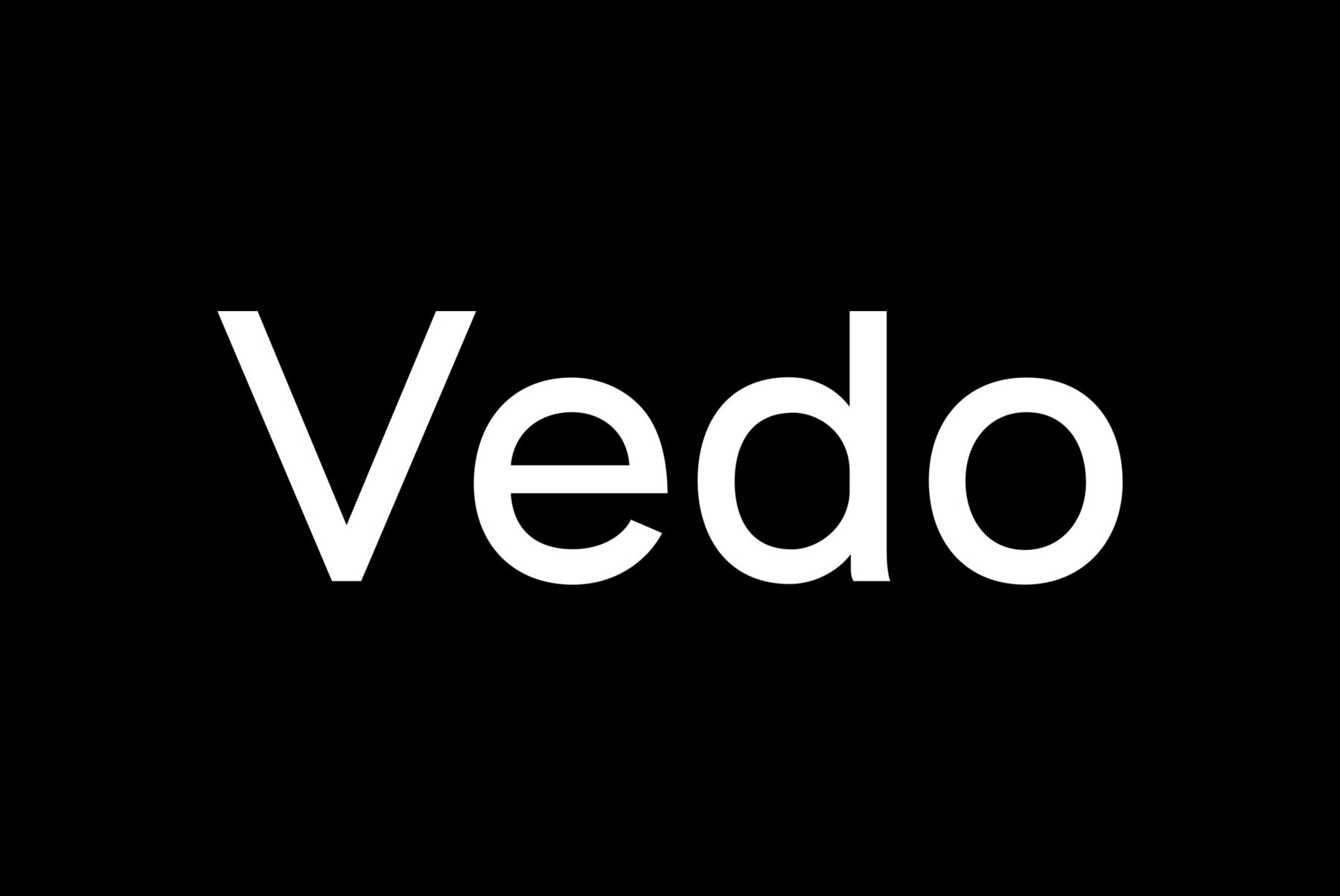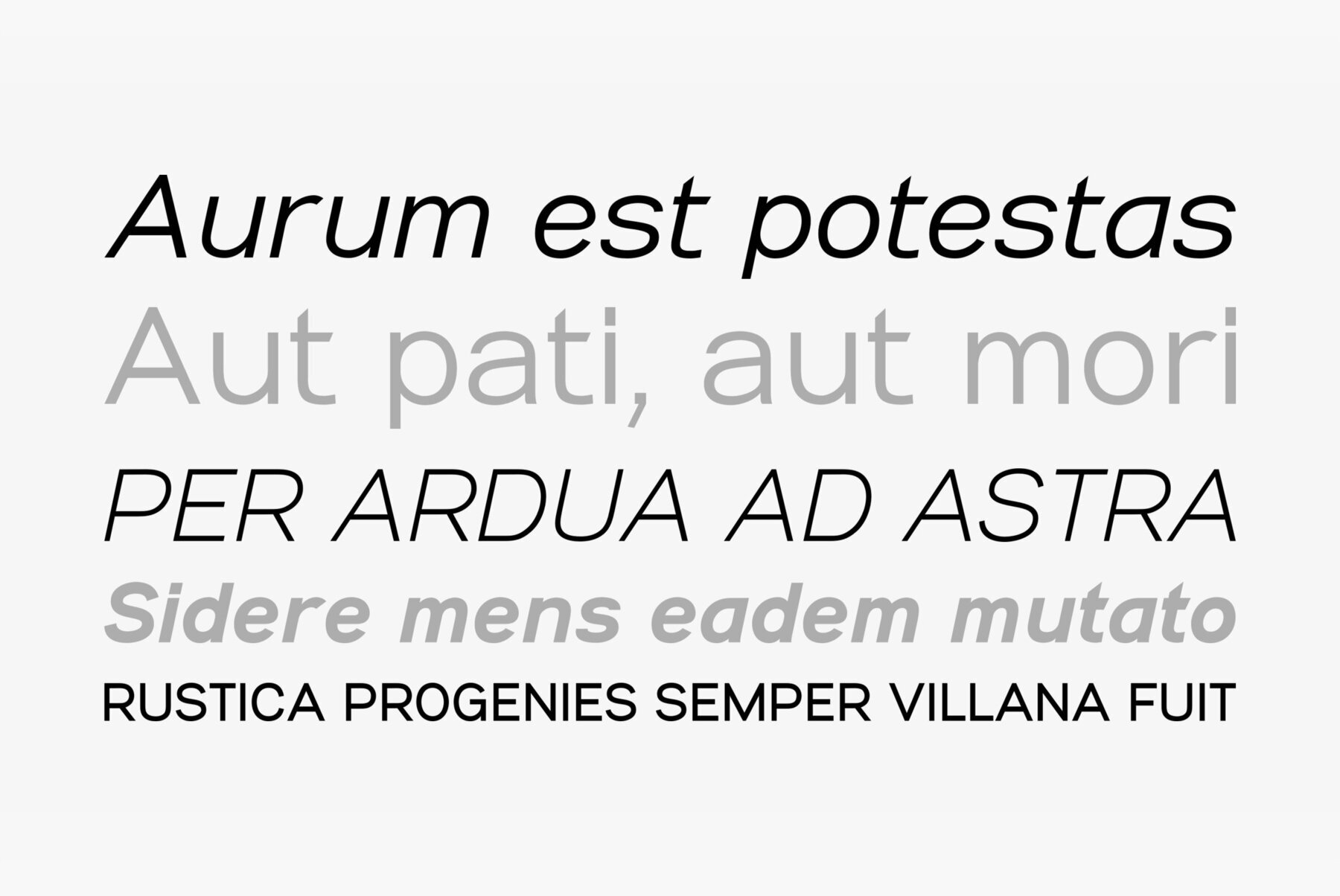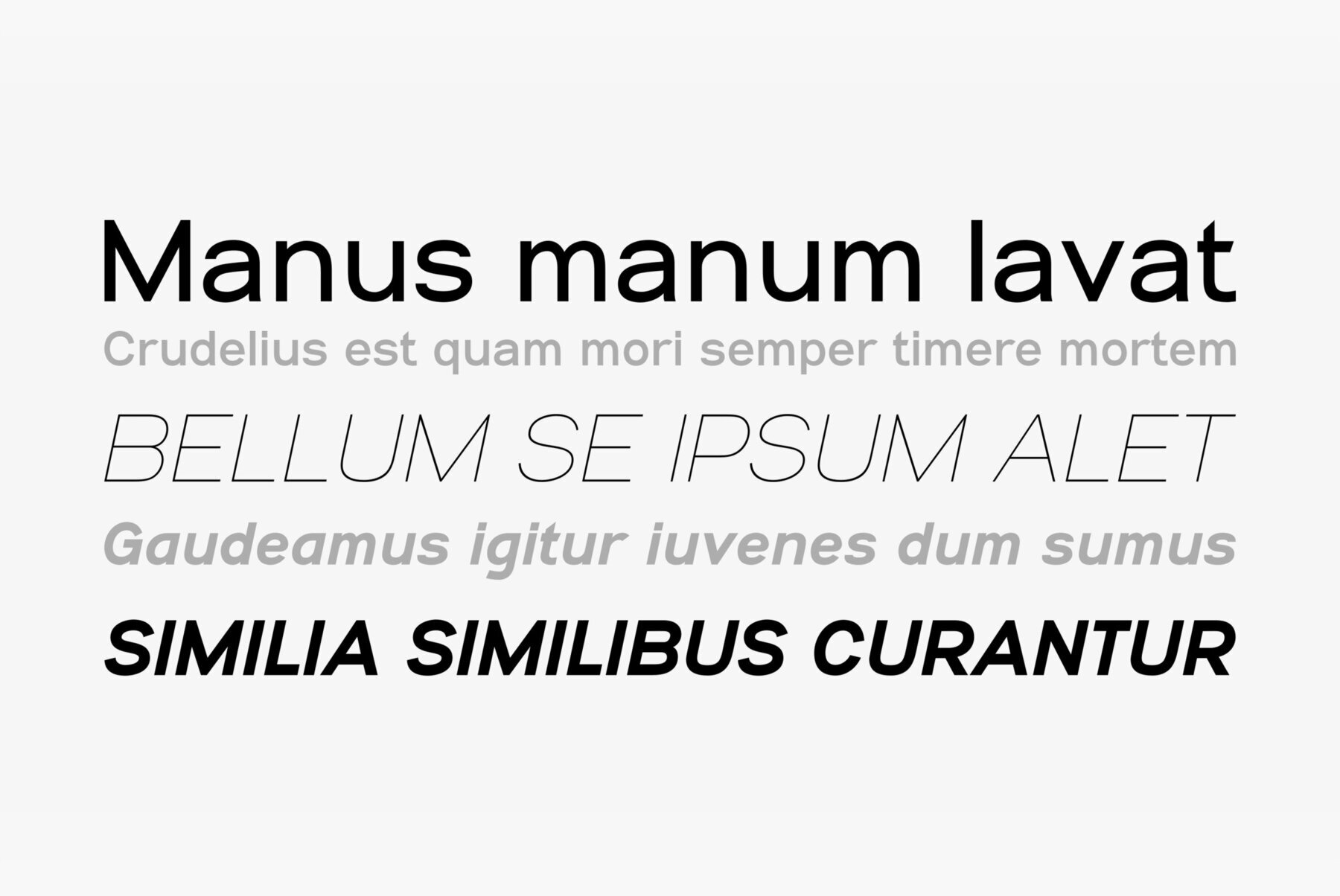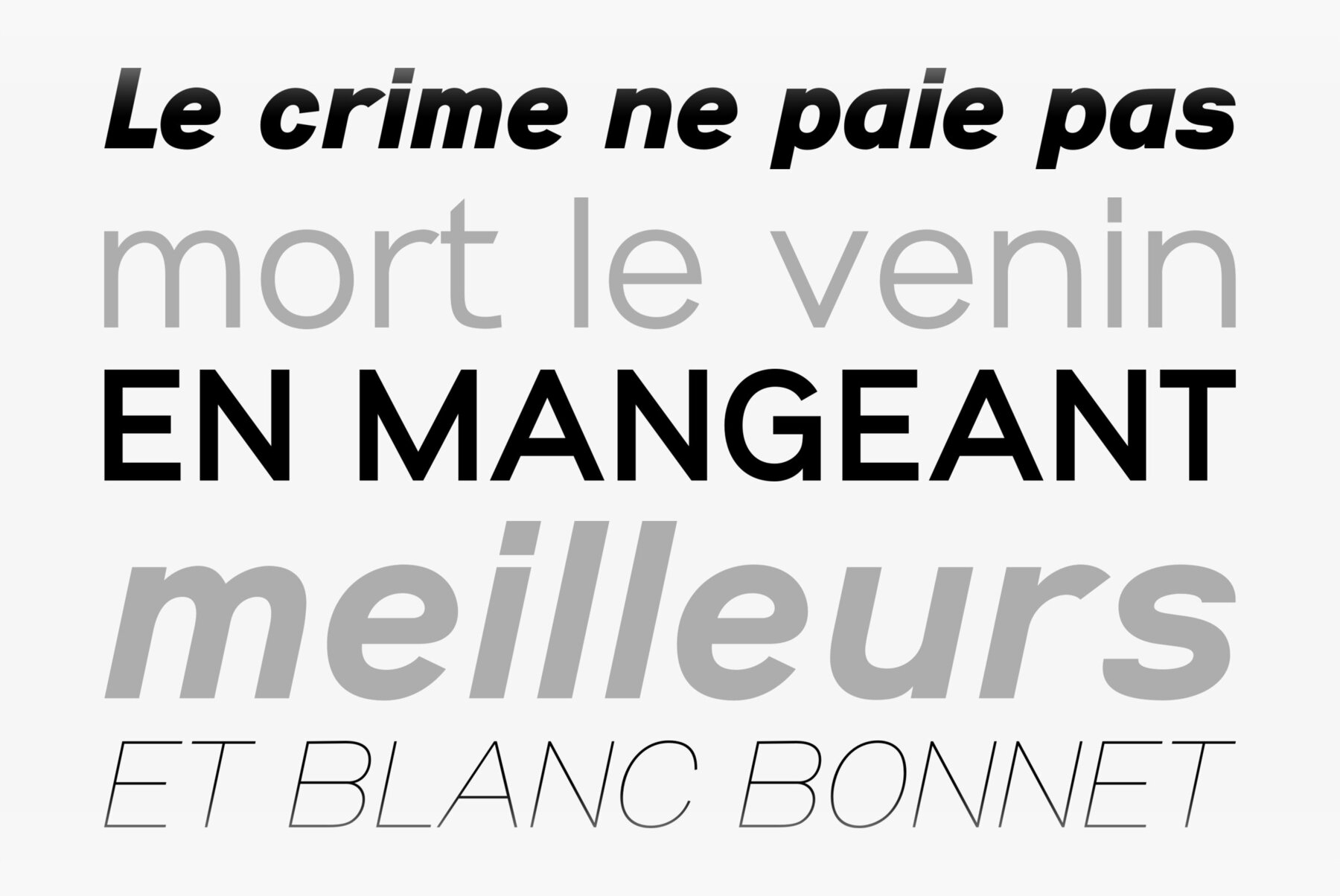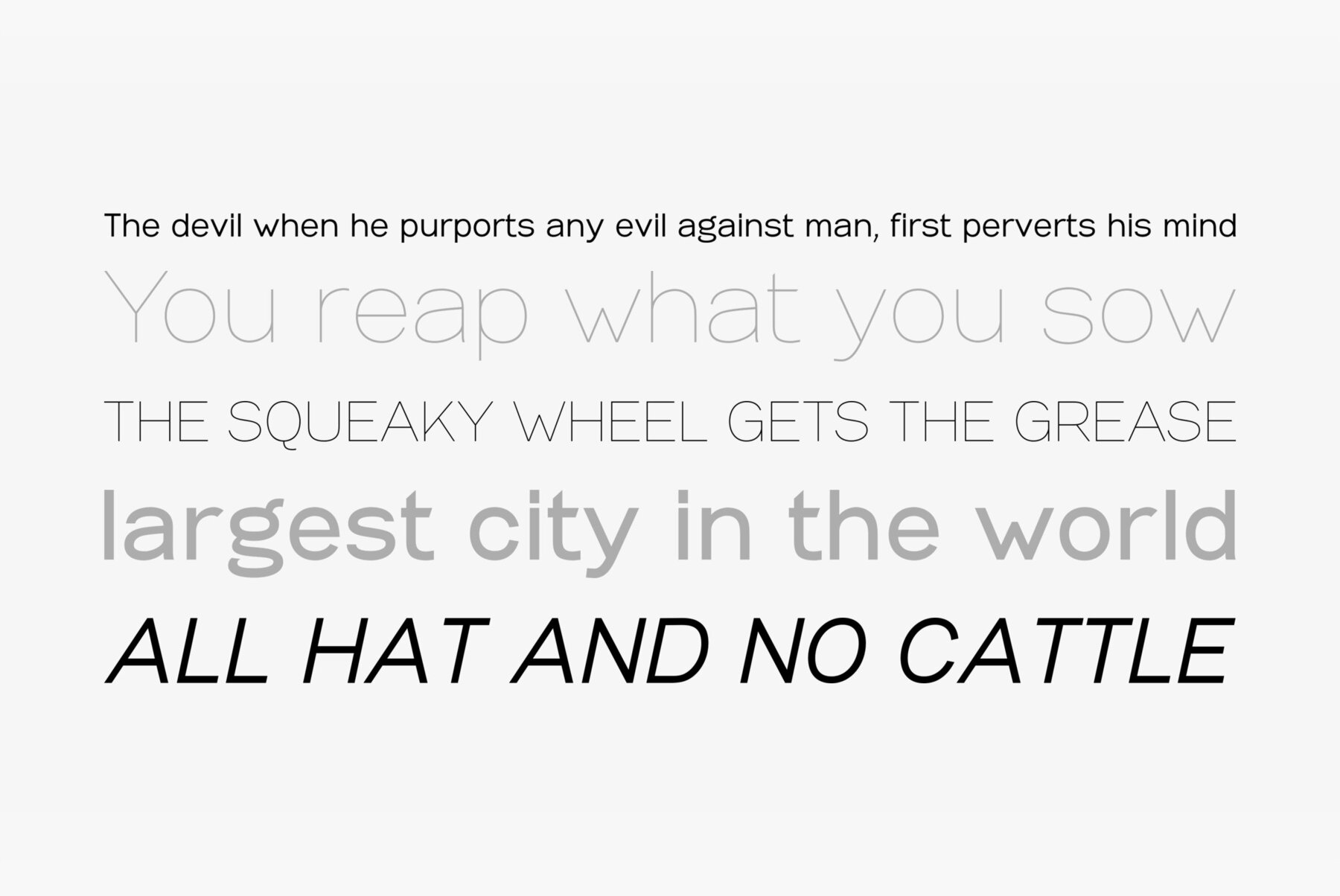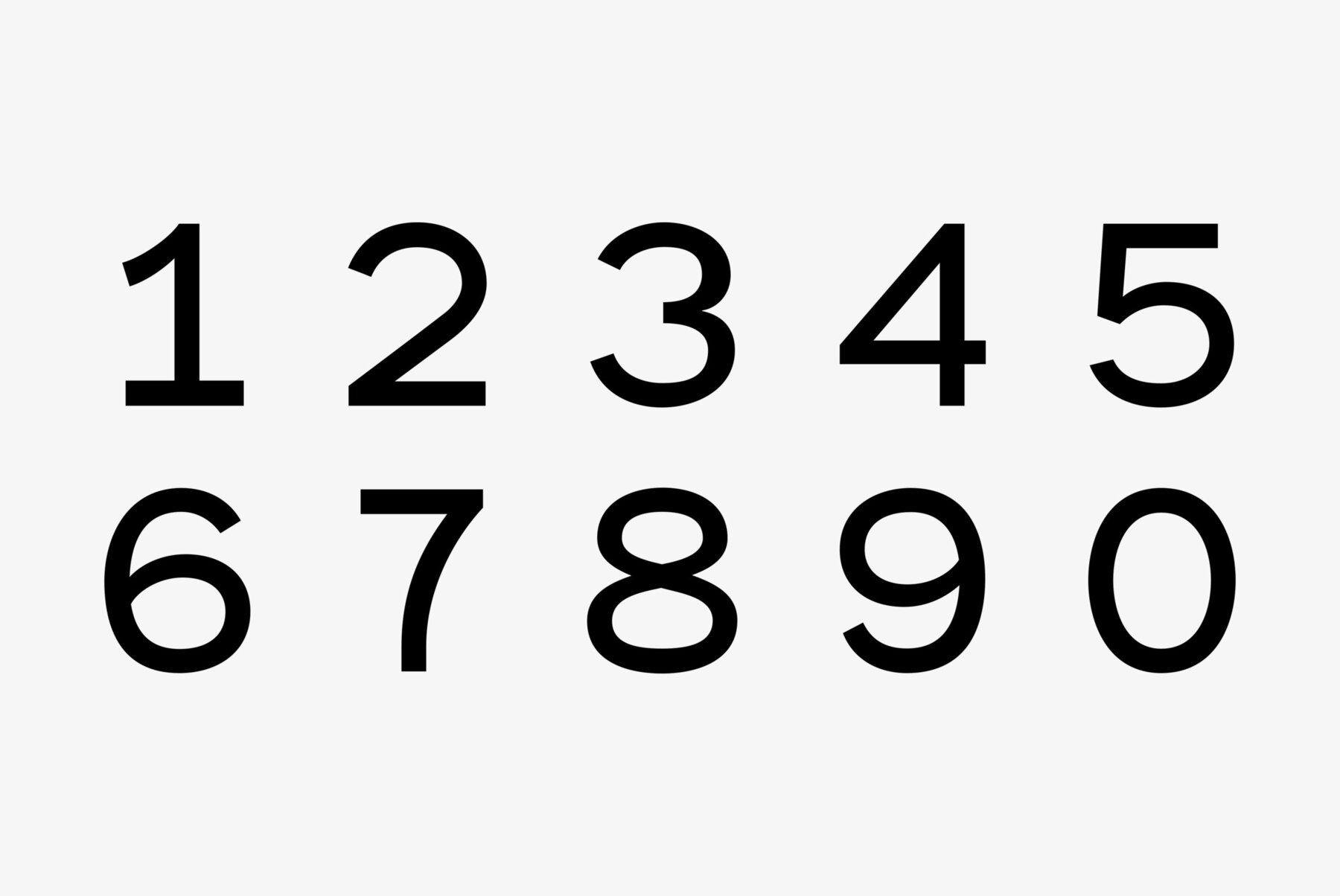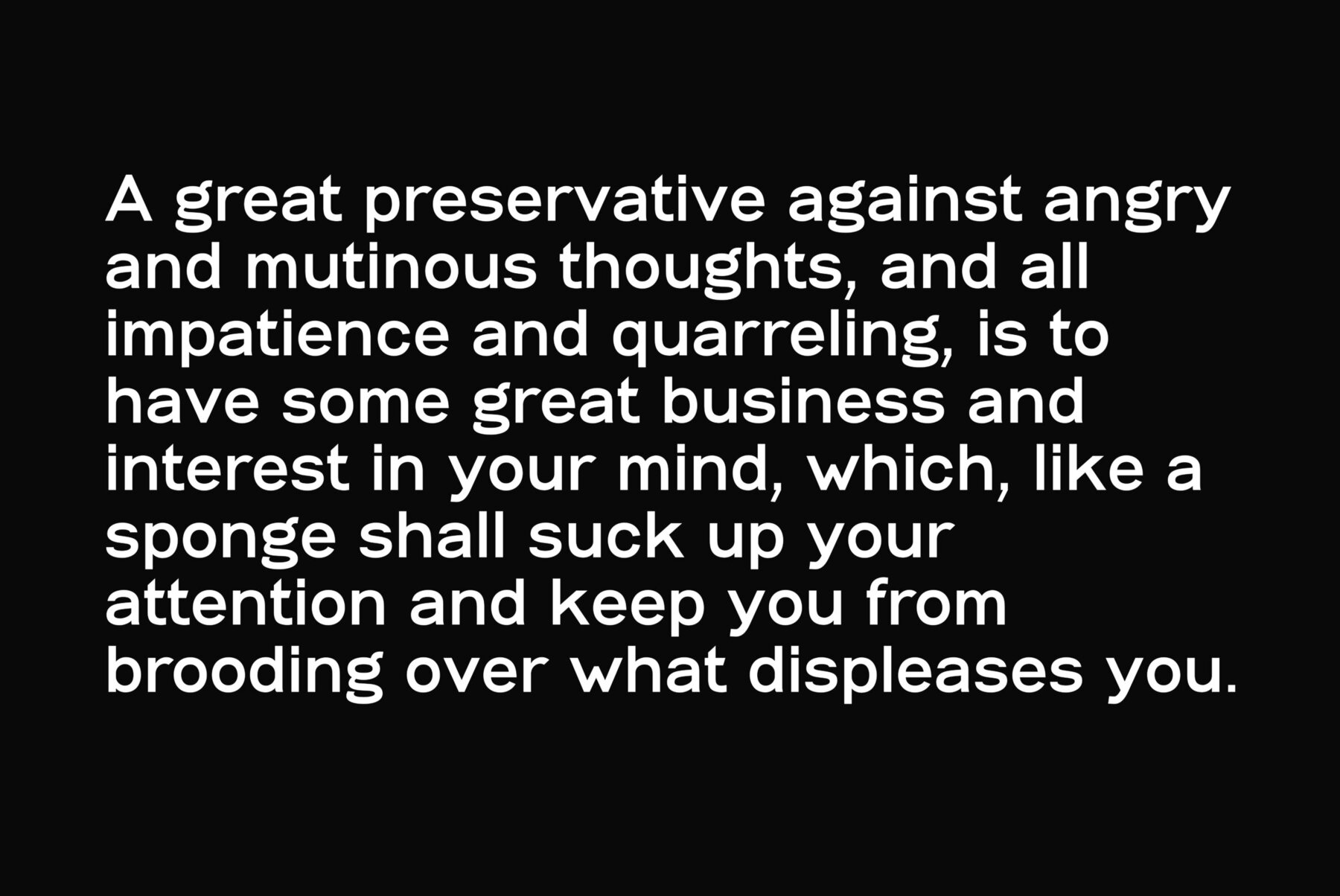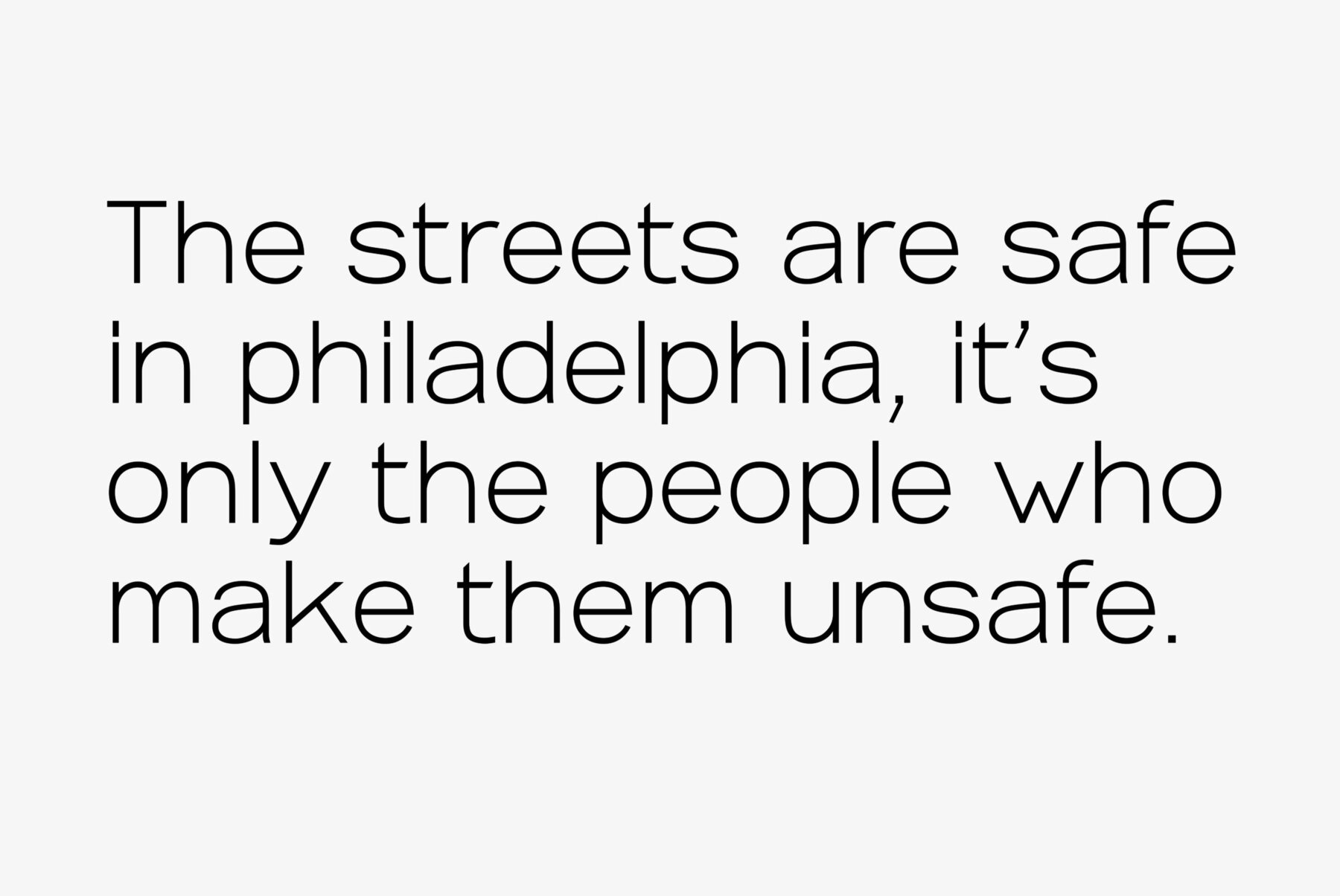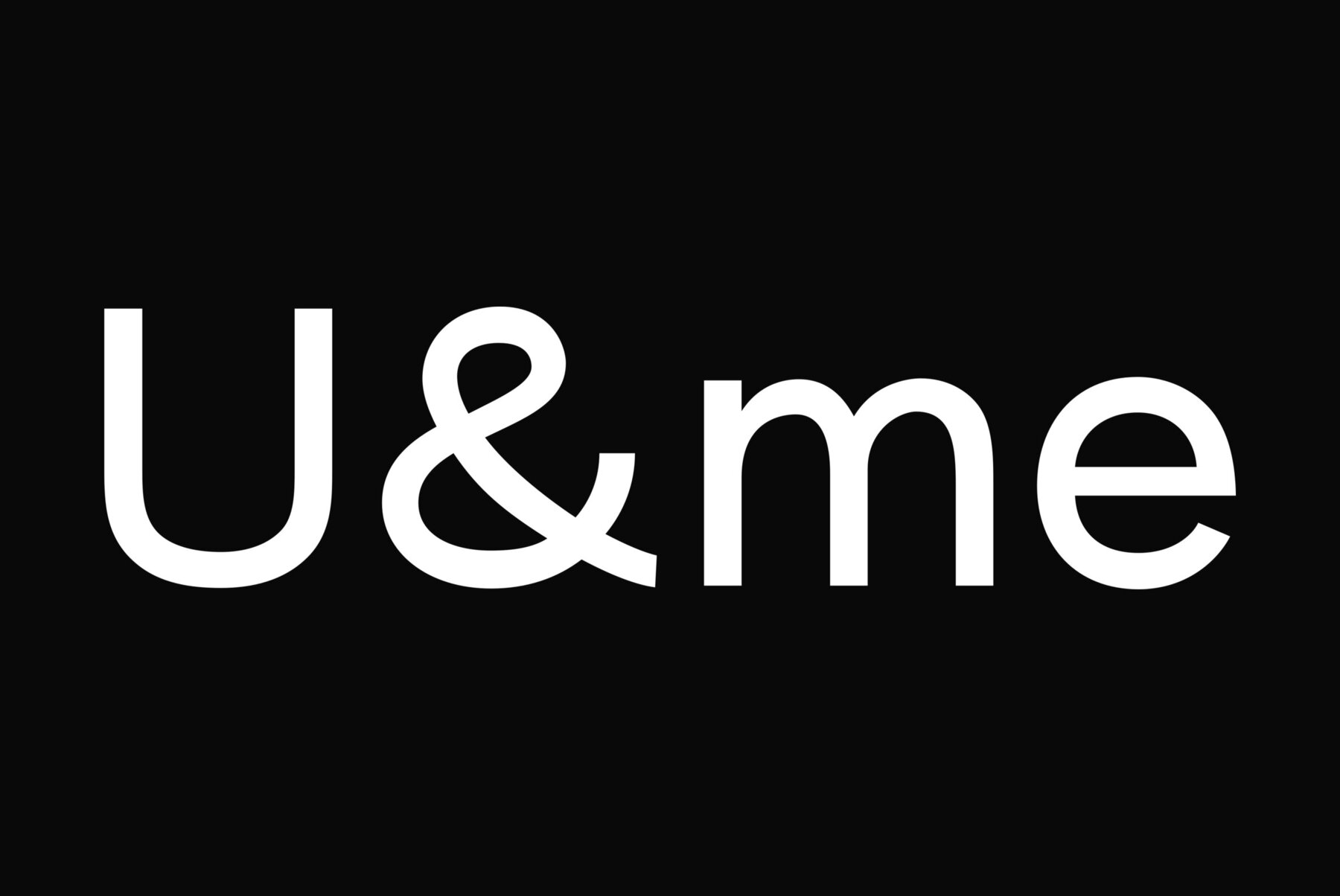
Vedo Font
The name "Vedo" is derived from the Latin word for "I see". Vedo is a new, sturdy Sans Monoline in 7 weights and 7 Italic cuts. The "Thin" cuts are free of charge. Yours designing new fonts in the Bauhaus tradition Gert Wiescher.